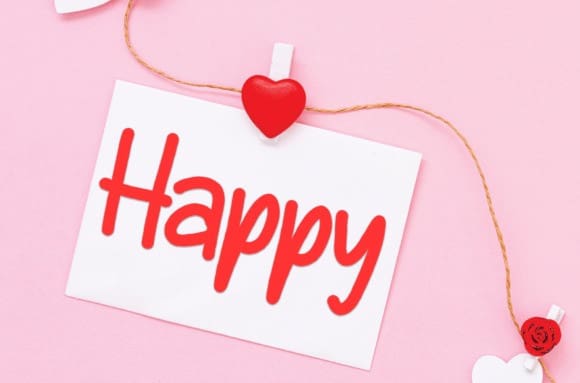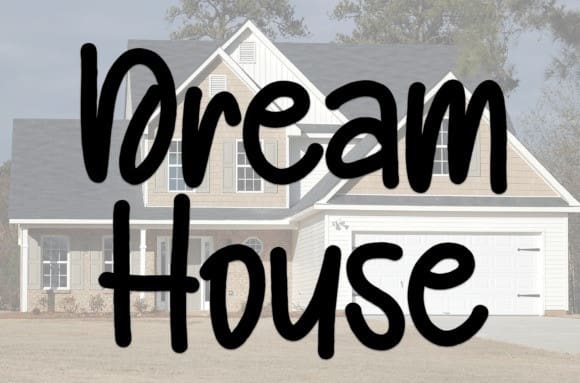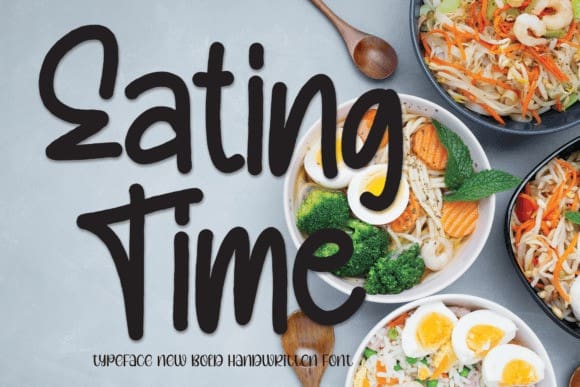
Eating Time Font
Eating Time Font is a sweet and friendly handwritten font. Cute and fun, this font is ideal for writing wedding invitations, cards, or any other design that might need a fun touch!